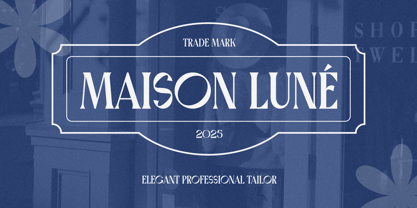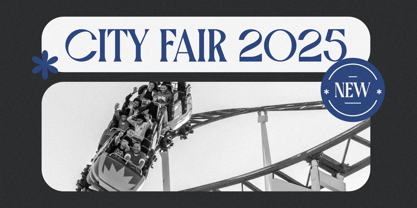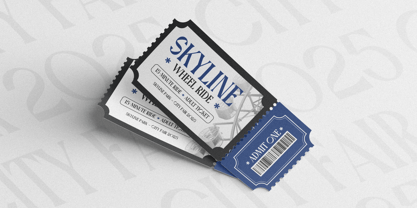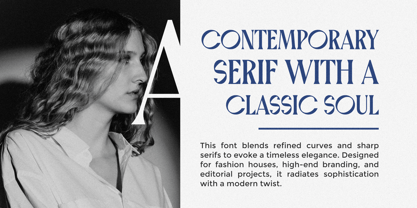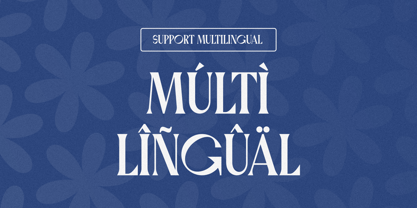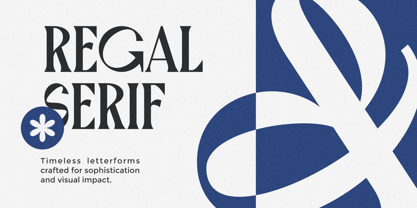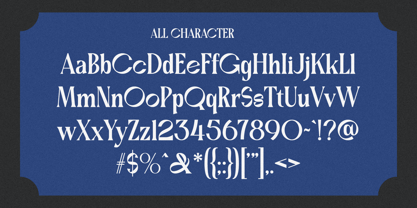
Erozi
by Maikohatta
The Erozi Font Family was designed by Gilang Ternadho and published by Maikohatta. Erozi contains 1 styles. More about this family
Introducing Erozi is a refined and artistic serif display typeface designed by Maikohatta, released in 2025. It features a striking blend of modern elegance and vintage flair, characterized by sharp serifs, dramatic contrast, and unique letterforms that make it ideal for headlines, branding, editorial design, and luxury packaging.
Its artistic curves and bold presence give off a sophisticated yet contemporary vibe, making Erozi a perfect choice when you want your typography to stand out with character and class.
Designers: Gilang Ternadho
Foundry: Maikohatta